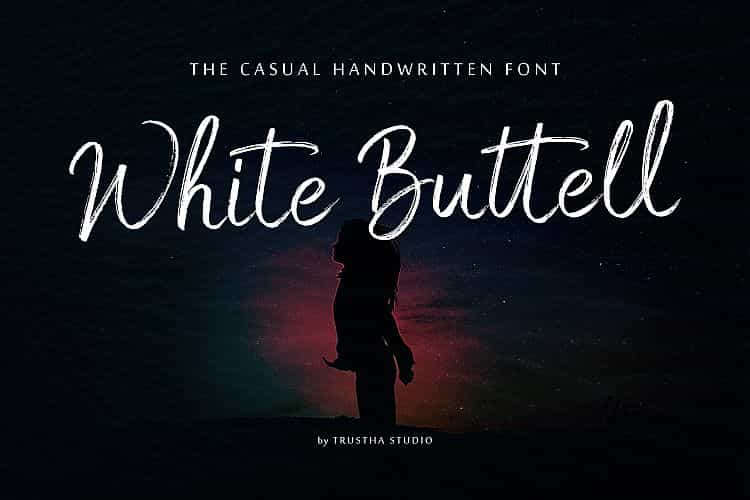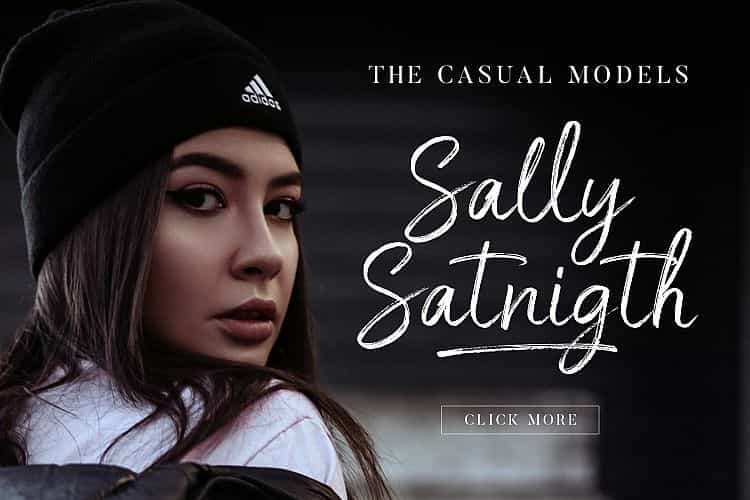
Hello designer, this is White Buttell Font. It is a dry eraser calligraphy script typeface for branding, advertising, a promotional poster design, logo making a book cover design, and a magazine.